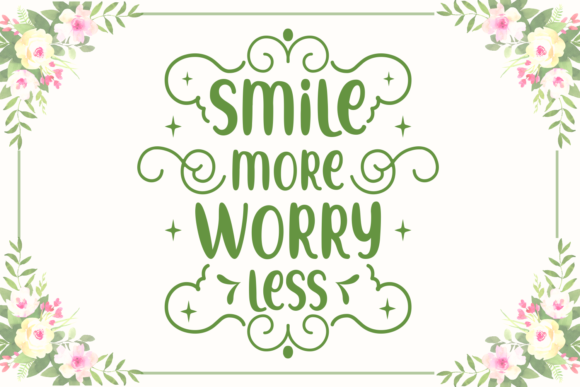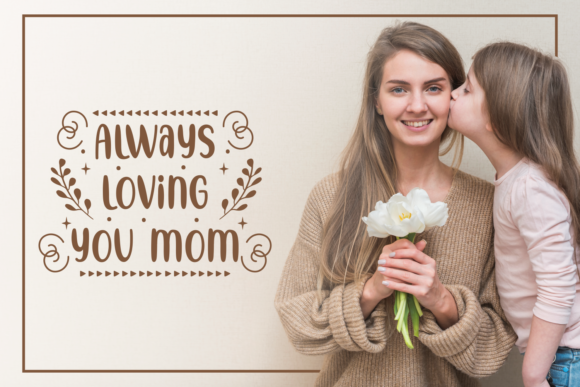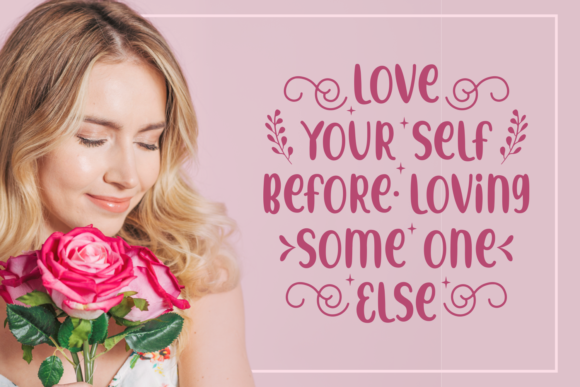
Sania Arsela Font – Free Download
Introduction to Sania Arsela Font
Sania Arsela is a cute handwritten font with a whimsical charm.
Get inspired by its bold feel .
Key Features of Sania Arsela Font